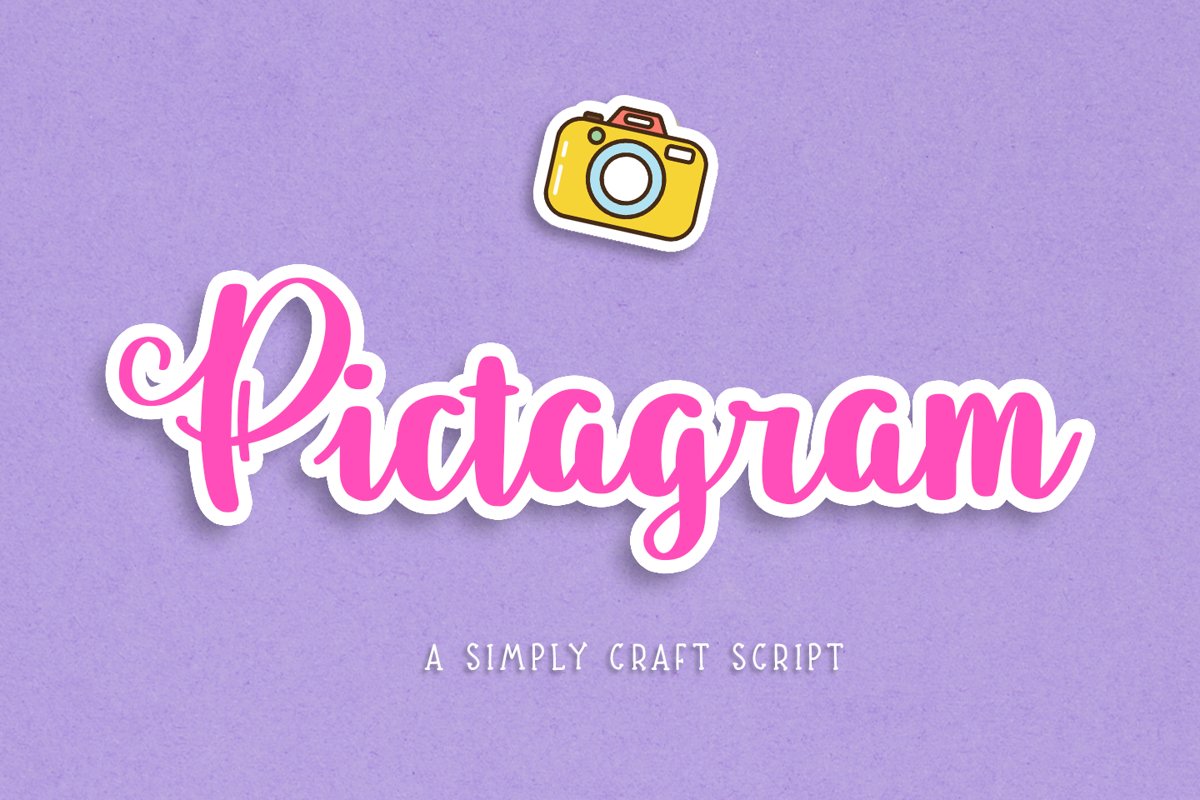
Pictagram
introducing
PICTAGRAM
a simple craft script
This font is simple and cute.
It is great for quotes, advertisements, cover books, posters, business cards, social media and more.
The uppercase Characters are great for Monogram Logo